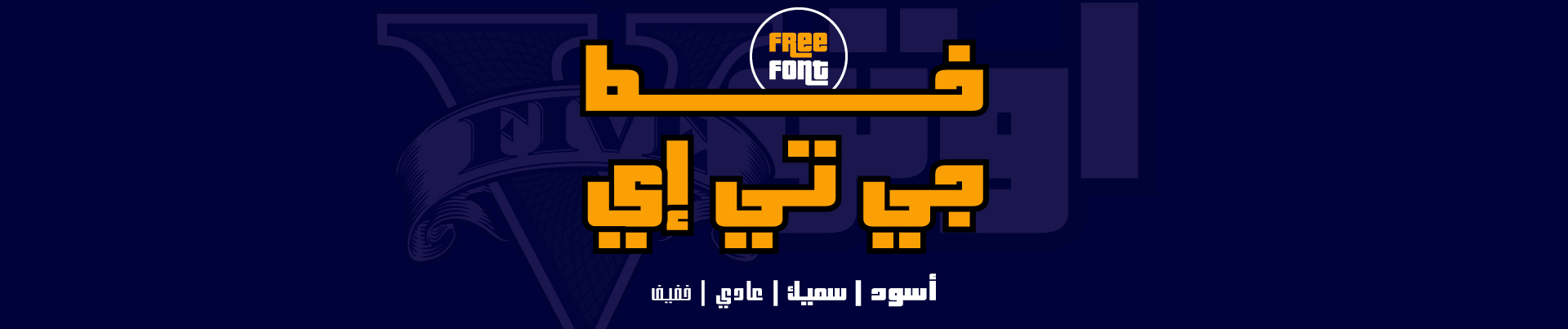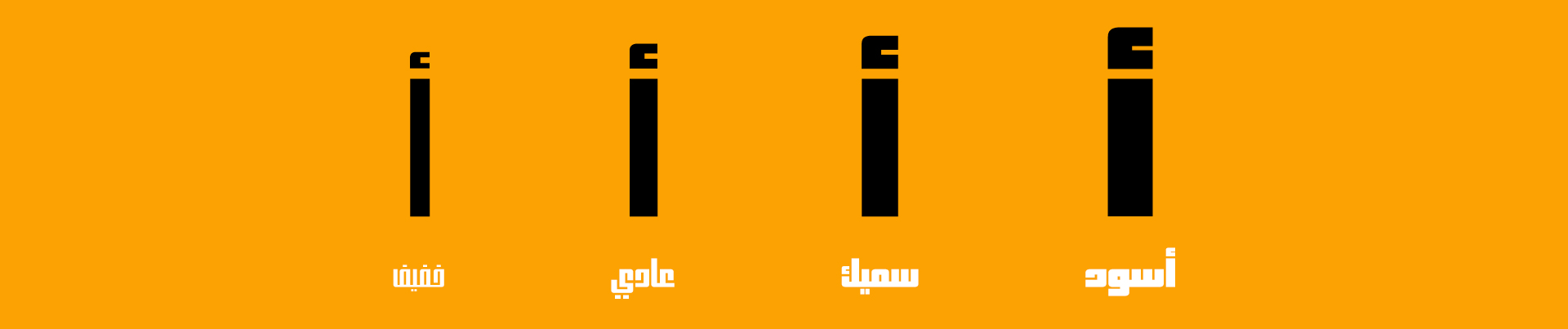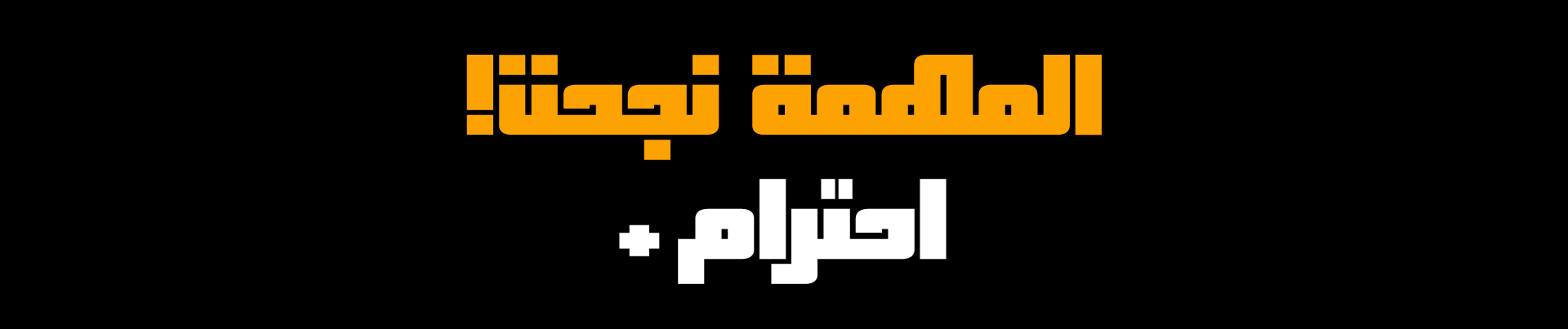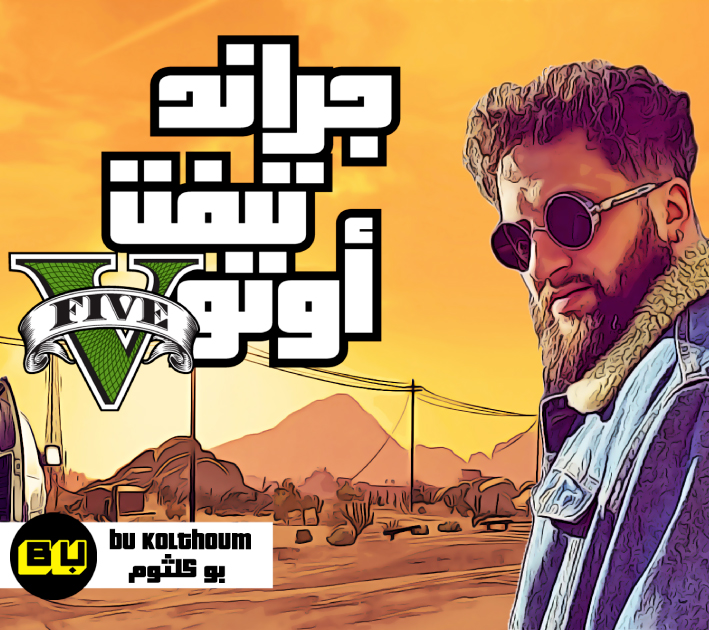
About GTA Ar Font
Introduction:
GTA Ar is a new Arabic font that was designed by matchmaking the Latin font “Pricedown.”
Weights and Supported Languages:
It is available in 4 weights “Light-Regular-Bold-Black”
It supports the Arabic language
Usage:
Suitable for headlines, posters, covers, games, and social media